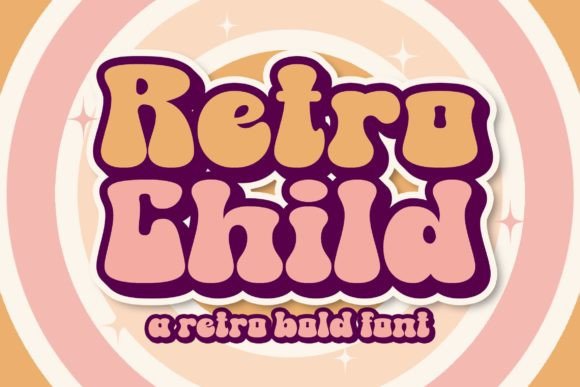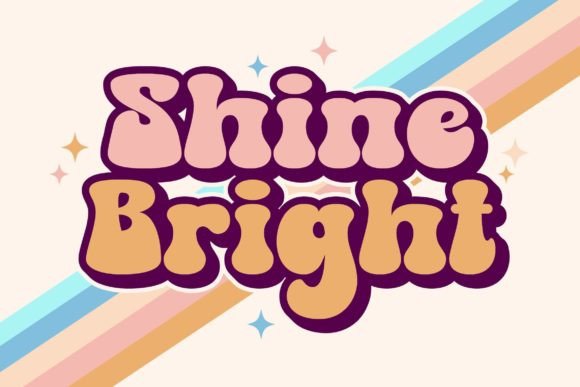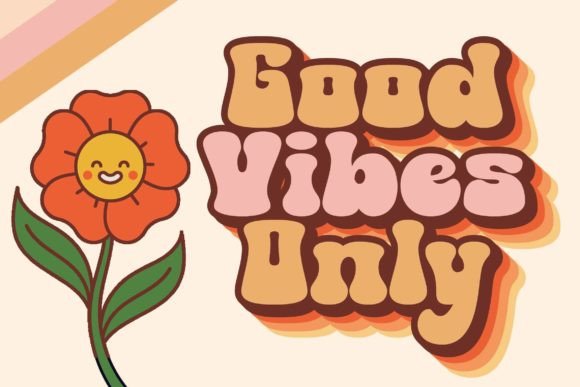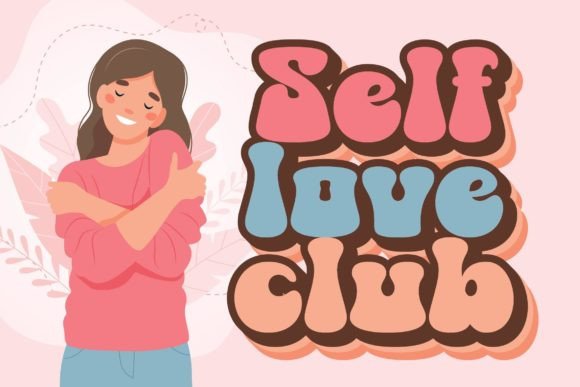
Retro Child Font
About the Retro Child Font
Crafted with precision, the Retro Child Font is ready to bring your ideas to life. Retro Child is a bold and quirky display font with a cool, funky vibe. Its unique letter forms make this font perfect for groovy band posters, hippie logos, social media posts, packaging, magazine covers, and more.
Retro Child’s bold, quirky forms excel in headlines, logos, and short bursts of text where its playful energy can shine. It’s ideal for projects needing a vintage, 70s-inspired aesthetic, such as retro-themed branding, music-related materials, or playful product packaging. However, its unique letterforms and condensed nature make it less suitable for body text or UI elements requiring high readability.
Pairing Retro Child with a clean sans-serif like Open Sans for body copy creates a strong contrast, balancing its playful energy with clear, functional typography. Alternatively, a classic serif such as Garamond can add a touch of sophistication, grounding the font’s quirkiness. For a more cohesive retro feel, consider pairing it with a geometric sans-serif like Futura.
The font’s overall personality is undeniably bold and playful, yet retains a friendly approachability. It’s perfect for brands targeting a young, energetic audience and projects seeking a fun, nostalgic feel. Avoid using it in contexts requiring formality or sophistication.
Retro Child Font Usage Examples
Retro Child Font Example